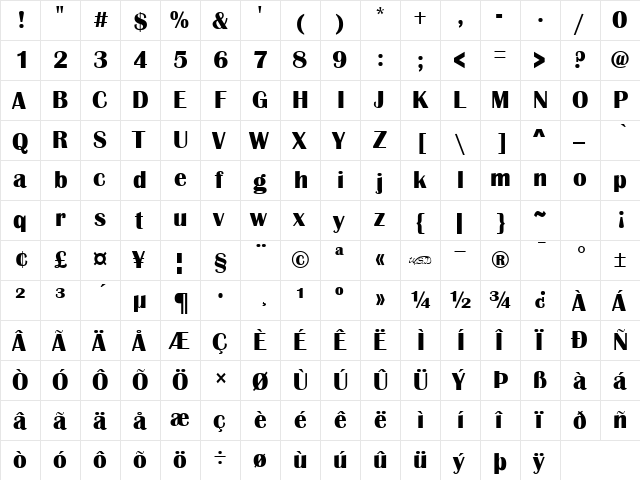
Scotsdale Regular
Design Context for Scotsdale Typeface
Scotsdale takes a measured approach to typography — its balanced proportions and neutral character make it a reliable workhorse for both digital and print work.